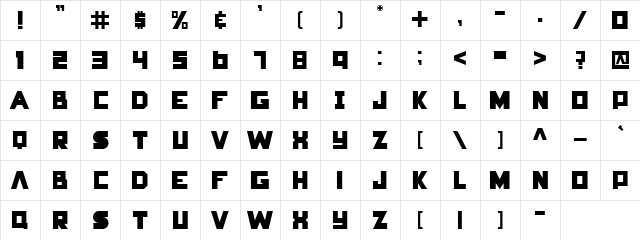
Hunger Games Regular
Design Context for Hunger Games Typeface
Hunger Games is a composed and adaptable typeface that performs quietly and consistently across a wide range of design contexts.